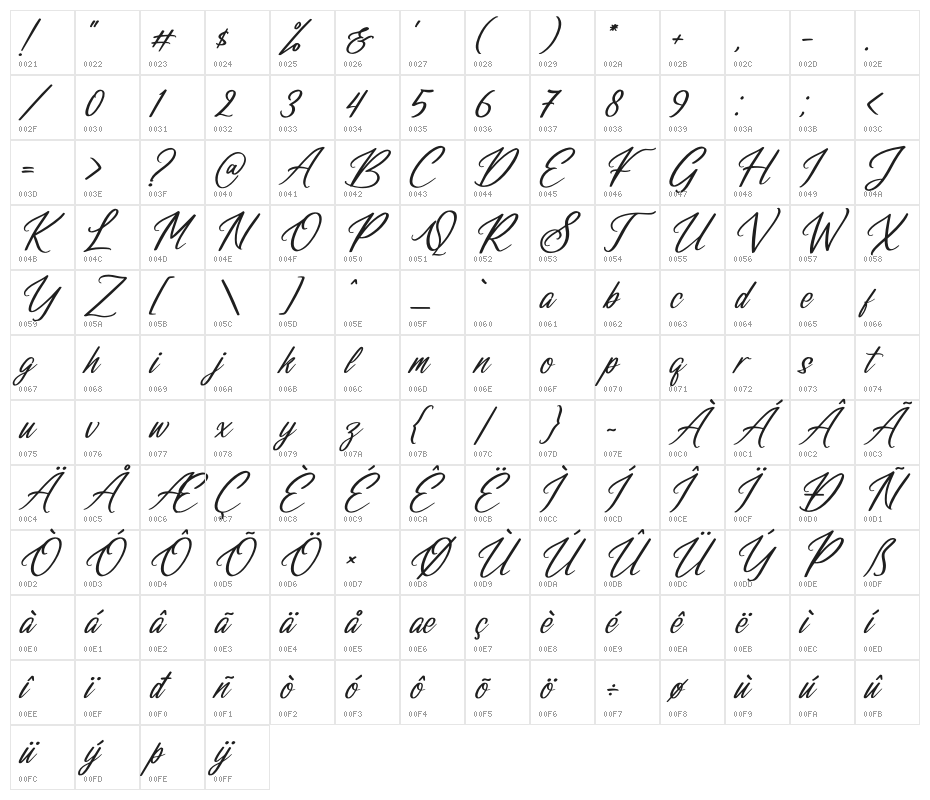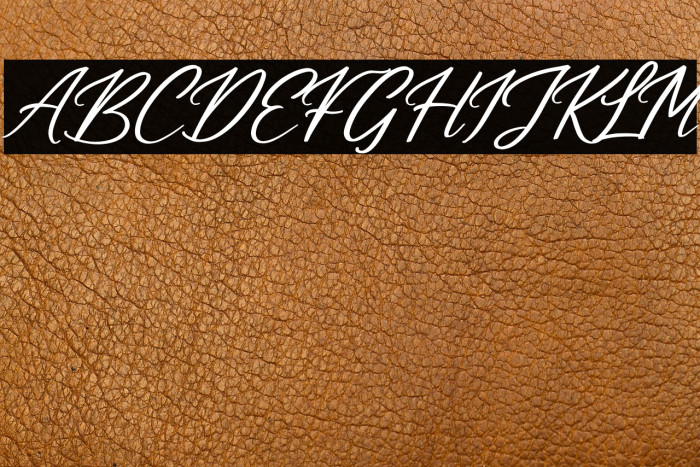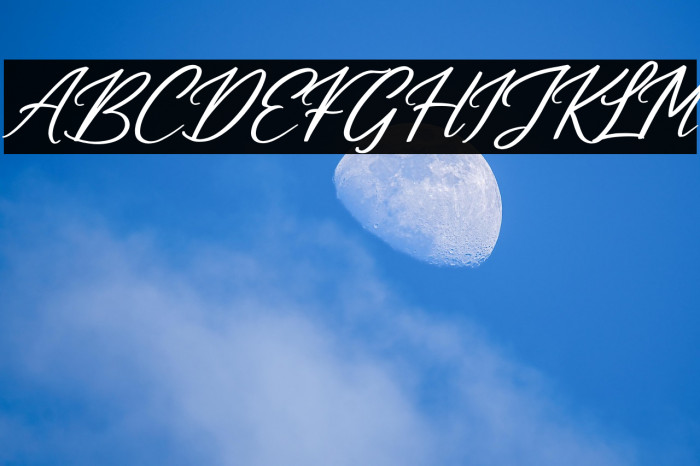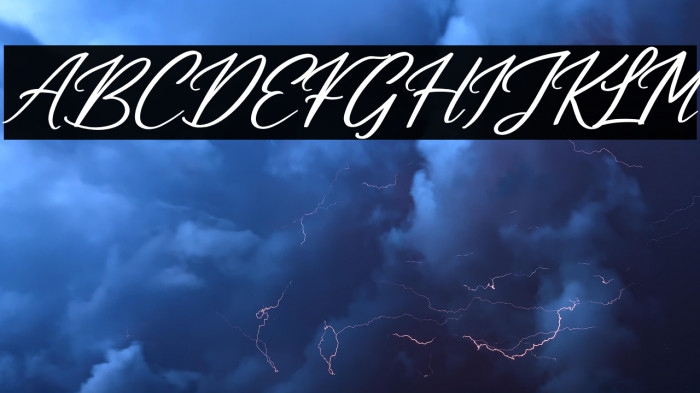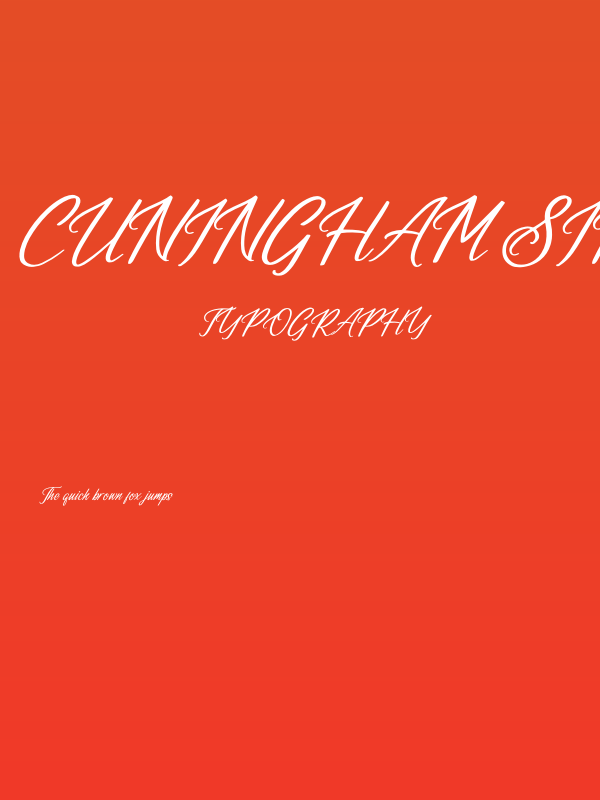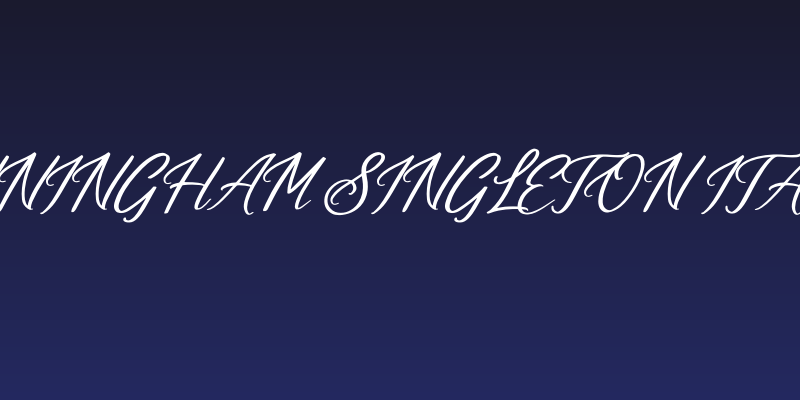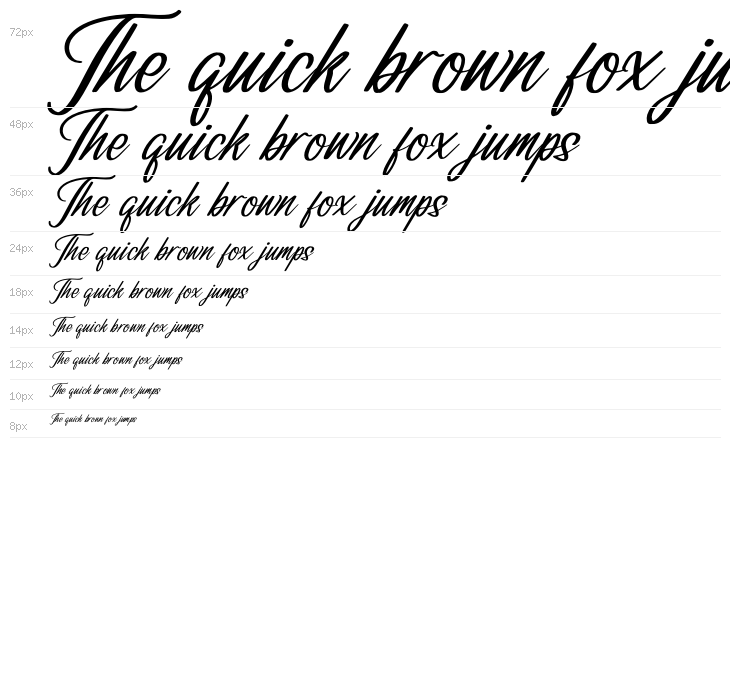
Cuningham Singleton Italic Font
Cuningham Singleton Italic Description
This font features an elegant and flowing script style, characterized by its smooth, cursive strokes and a slight slant to the right, giving it an italic appearance. The uppercase letters are ornate and sophisticated, with sweeping curves and flourishes that add a touch of elegance. The lowercase letters maintain a consistent flow, connecting seamlessly in a way that mimics natural handwriting. The numerals are stylish and maintain the same cursive quality, ensuring a cohesive look throughout. Special characters are designed with the same attention to detail, enhancing the font's overall aesthetic. This font is ideal for projects that require a touch of sophistication and elegance, such as wedding invitations, formal event programs, or luxury branding.
| Overall Style | Elegant, Sophisticated |
| Use Case | Invitations, Branding, Stationery |
| Proposed Projects | Ideal for wedding invitations, formal event programs, luxury branding, and elegant stationery. |